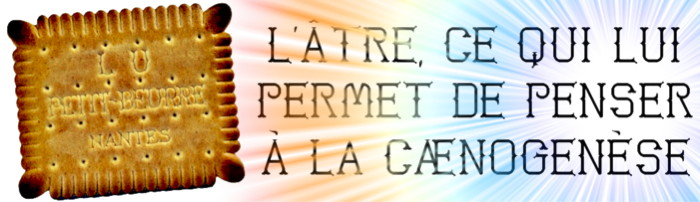
• I love the traditional French biscuits made on the French west coast where  Loire meets Atlantic.
The biscuits are thin, crunchy, light, not too large, not very sweet, melt on the tongue, and biscuits very like the original can be made/baked quite easily.
The traditional version has a limited range of letters, enough to write the name of town, manufacturer and product. I've been unsuccessful in finding an image of the font which contributed just a few letters to decorate these biscuits.
I spent some time looking at other type of the Victorian/Art Nouveau era until I had collected enough information to help me design the missing letters. I added the French diacritics, naturally. I think my additions look successful and the whole font looks quite Art Neauveau and in the style used originally.
The square brackets [ and ] make a biscuit shape when used 'blank'.
Added basic punctuation and French diacrititcs as promised. Now the square brackets side by side give a biscuit shape for extra crunch. The parent font with extended character sets will soon be available for commercial work.
I have aligned spurs and crossbars (not on 5,6,9), changed the crossbar serifs (e,f), and changed the width of m,p,r,w,0,8. Are there any other problem areas?
Tasty and ornate glyphs, also love the outline biscuit dingbat.
I placed the letters on the base line and lowered other glyphs. There was no logic in keeping all glyphs at the height for use with the crunchy version's UC ;)